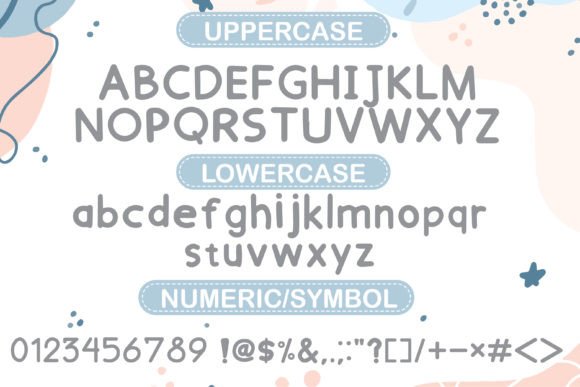
Cute Doodle Font: The Ultimate Design Companion for Crafters
Are you a crafter, designer, or DIY enthusiast looking for a versatile and adorable font to elevate your projects? Look no further than the Cute Doodle Font! This charming font is perfect for a wide range of crafting needs, from t-shirt design to scrapbooking, and can be used with various cutting machines, including Cricut and Silhouette.
What is Cute Doodle Font?
Cute Doodle Font is a unique and playful font designed to add a touch of whimsy to your projects. Its doodle-inspired style makes it perfect for creating visually appealing and engaging designs. The font comes in both SVG and PNG formats, making it compatible with a variety of cutting machines and design software.
Endless Possibilities with Cute Doodle Font
The possibilities are indeed endless when it comes to using Cute Doodle Font in your crafting projects. Here are some ideas to get you started:
- T-Shirt Design: Create custom t-shirts with Cute Doodle Font for special occasions, events, or everyday wear. The font’s playful style is sure to make your designs stand out.
- Scrapbooking: Add a personal touch to your scrapbook pages with Cute Doodle Font. Use it to title your pages, highlight important dates, or create custom captions.
- Photo Albums: Make your photo albums extra special with Cute Doodle Font. Use it to create custom titles, labels, or captions that will make your memories shine.
- Card Making: Create one-of-a-kind greeting cards with Cute Doodle Font. The font’s playful style is perfect for birthdays, holidays, or special occasions.
- Coffee Mug Designs: Design custom coffee mugs with Cute Doodle Font for a unique and personalized gift. The font’s doodle style will add a touch of fun to any mug.
- Prints: Use Cute Doodle Font to create stunning prints for your home or office. From wall art to decorative signs, the font’s versatility knows no bounds.
Why Choose Cute Doodle Font?
So, why choose Cute Doodle Font for your crafting needs? Here are just a few reasons:
- Versatility: Cute Doodle Font can be used for a wide range of projects, from paper crafting to digital design.
- Unique Style: Cute Doodle Font has a unique and playful style that will add a touch of personality to your projects.
- Scalability: The font is highly scalable, making it perfect for projects of all sizes.
Tips and Tricks for Using Cute Doodle Font
Here are some tips and tricks to help you get the most out of Cute Doodle Font:
- Experiment with Colors: Don’t be afraid to experiment with different colors and color combinations to make your designs pop.
- Mix and Match: Mix and match Cute Doodle Font with other fonts and design elements to create unique and visually appealing designs.
- Pay Attention to Details: Pay attention to details, such as font size and spacing, to ensure your designs look professional and polished.
In conclusion, Cute Doodle Font is a versatile and adorable font that can be used for all of your crafting needs. Its unique style, ease of use, and scalability make it perfect for a wide range of projects, from t-shirt design to scrapbooking. Whether you’re a seasoned crafter or just starting out, Cute Doodle Font is sure to become a favorite in your design arsenal. So why wait? Download Cute Doodle Font today and start creating!